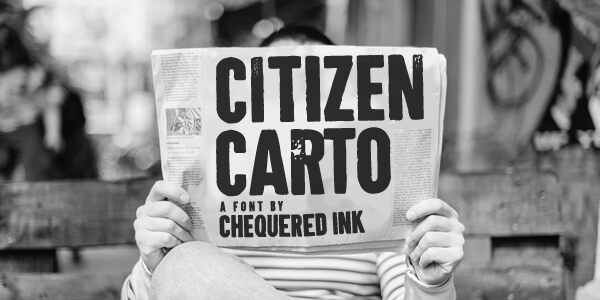
Citizen Carto
Citizen Carto, a striking display font crafted by Chequered Ink, exudes a gritty, weathered aesthetic that commands attention. Its condensed, eroded letterforms emanate a sense of industrial sophistication, evoking a rugged, contemporary vibe. This unique typographic treatment captivates with its bold, impactful presence, making it a versatile choice for designers seeking to add a compelling visual edge to their projects.
Citizen Carto's distinctive character lends itself seamlessly to a range of applications, from eye-catching headlines and powerful branding to impactful packaging and editorial designs. Its strong, authoritative personality makes it an excellent selection for projects that require a sense of durability, resilience, and urban flair, such as in the realms of advertising, publishing, and product design.